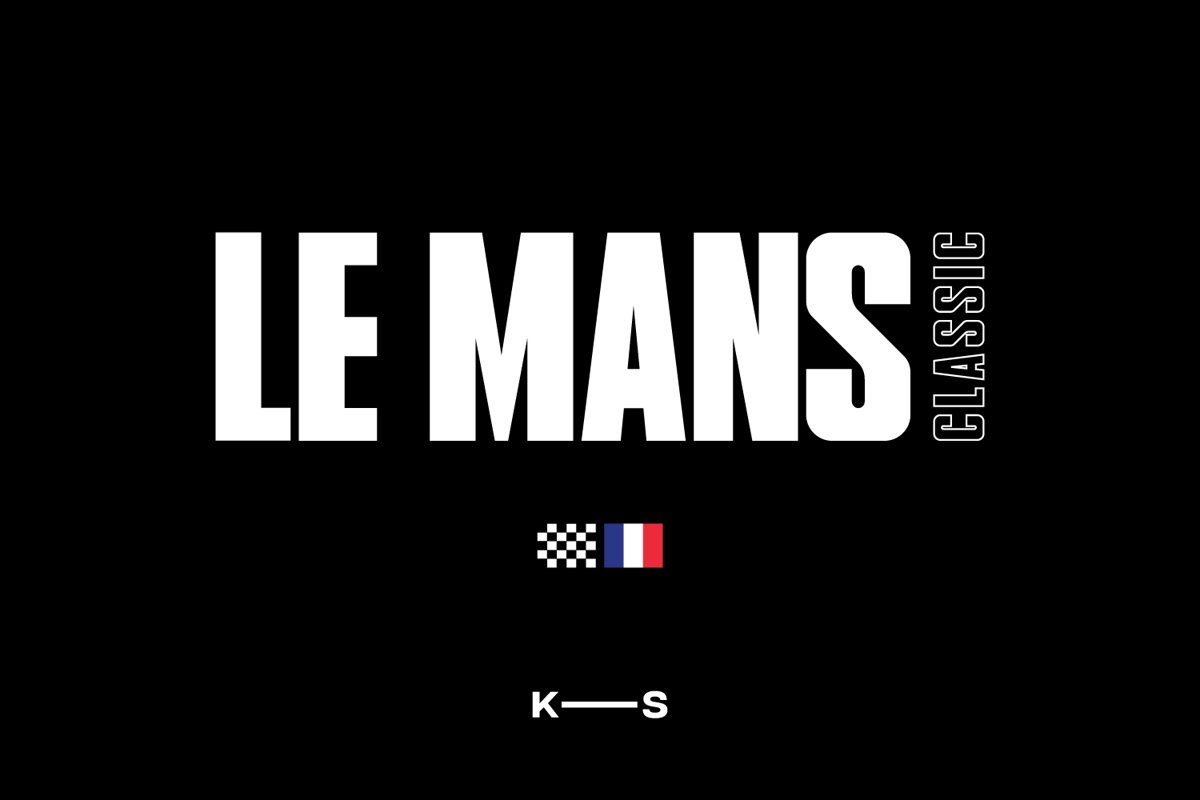
LE MANS - CLASSIC
LE MANS - CLASSIC - Regular (by Kazer Studio)
LE MANS - CLASSIC - Compressed (by Kazer Studio)
LE MANS - CLASSIC typeface is inspired by vintage motorsport racing. In particular, advertising posters from the 70's. This time period was important as it showcased not only the cars that changed but also the illustrative styles & typography.​Features:
• Offered in 2 Styles - Regular & Compressed
• 300+ glyphs and 26 Languages supported
• Specialised Kerning on all character combinations